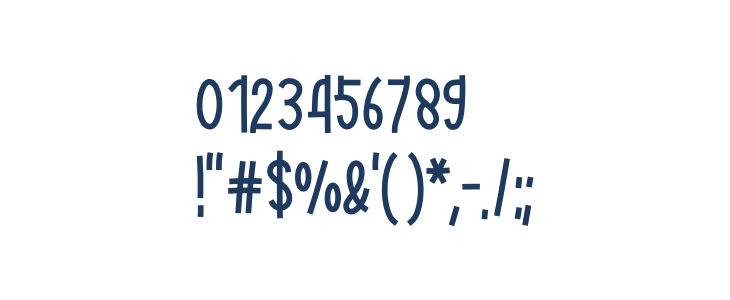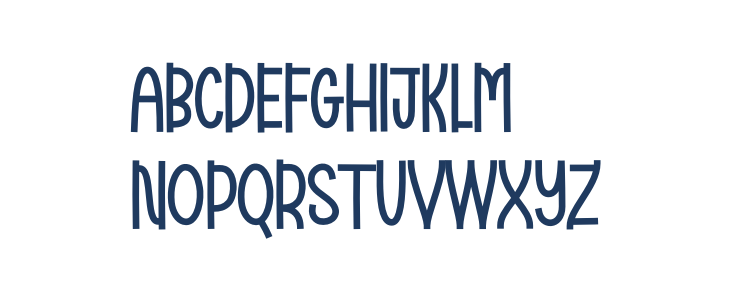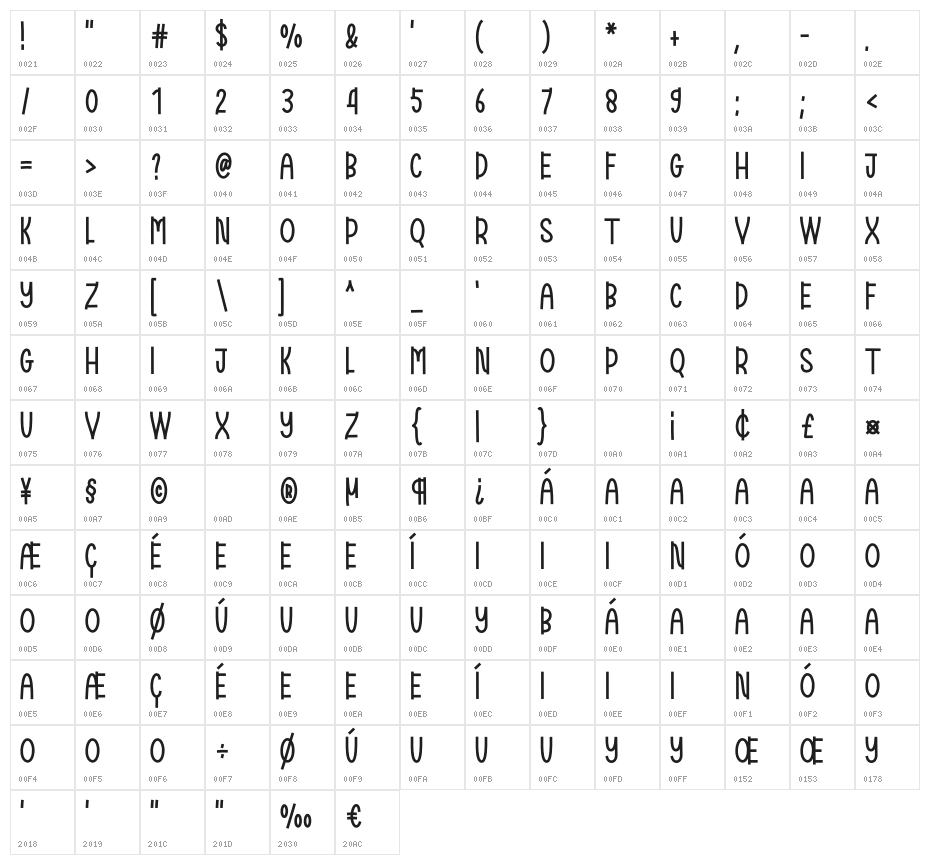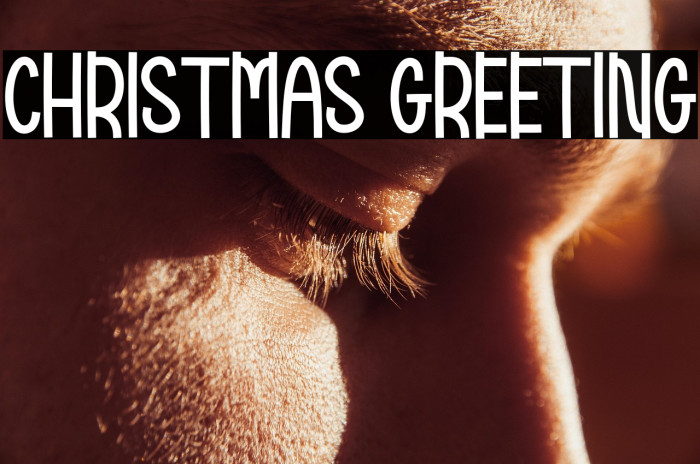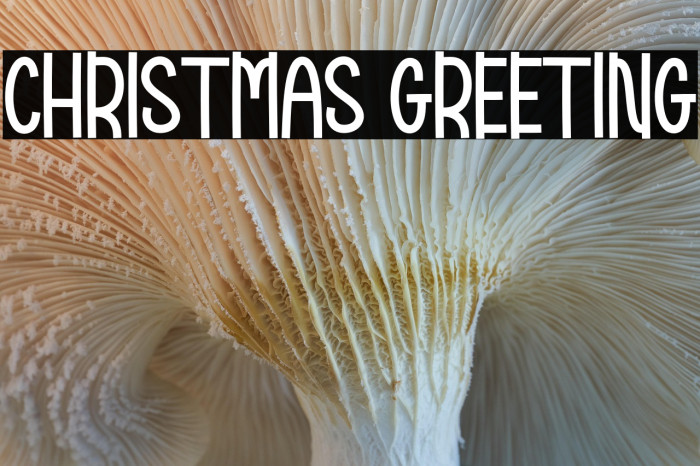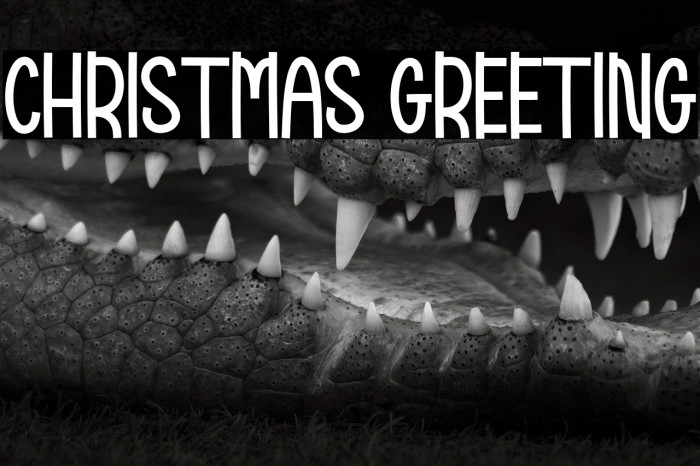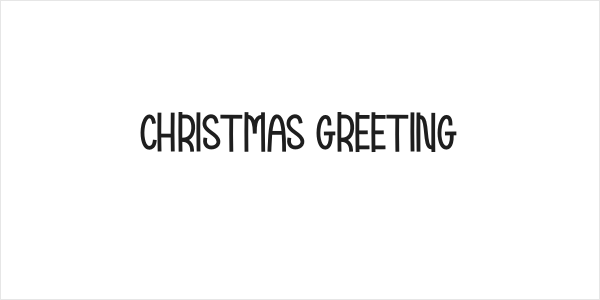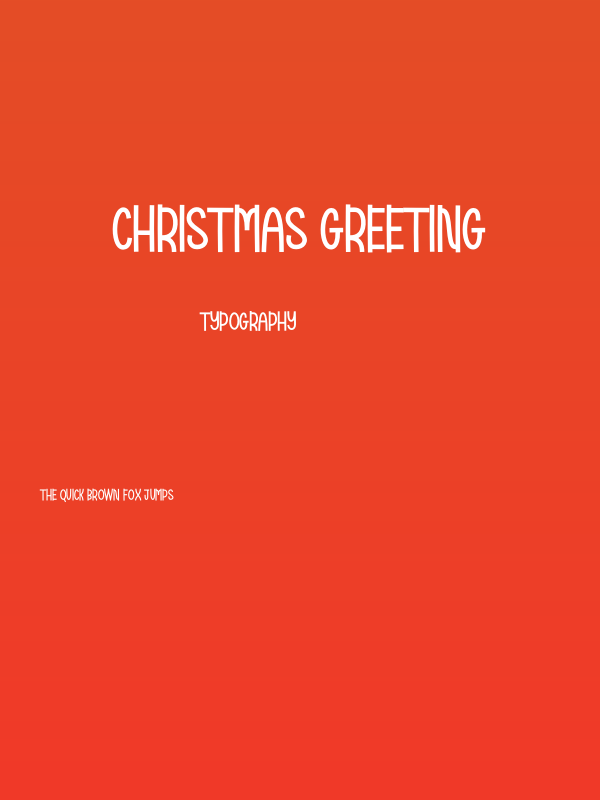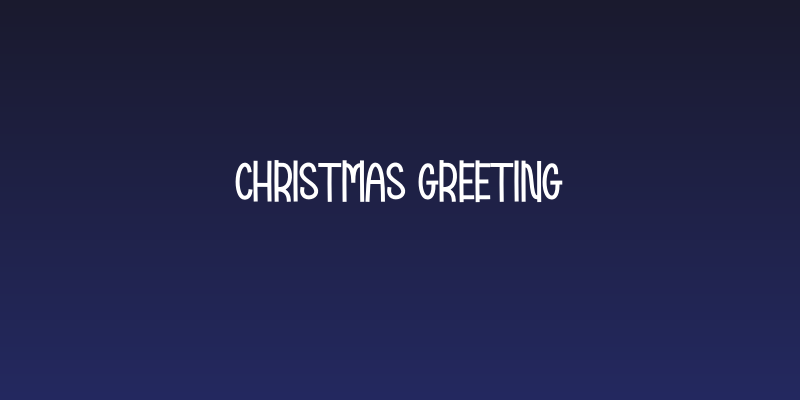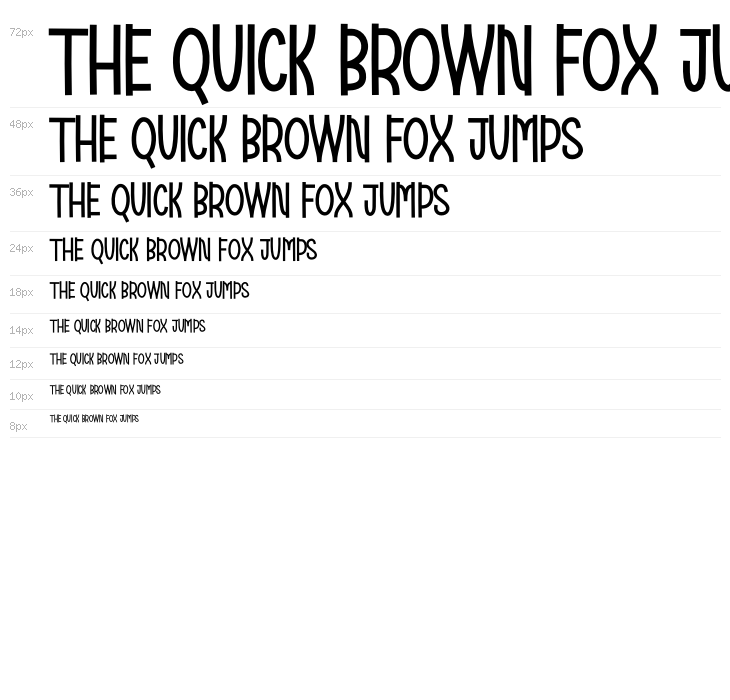
Christmas Greeting Font
Christmas Greeting Description
A playful, tall, and narrow sans-serif font with rounded edges and consistent stroke width, giving it a whimsical and friendly appearance. The characters are slightly irregular, adding a hand-drawn, festive touch.
| Overall Style | Decorative, Playful, Handwritten |
| Use Case | Headlines, Greeting cards, Posters, Logos |
| Proposed Projects | Holiday cards, festive invitations, children's books, playful branding, posters. |